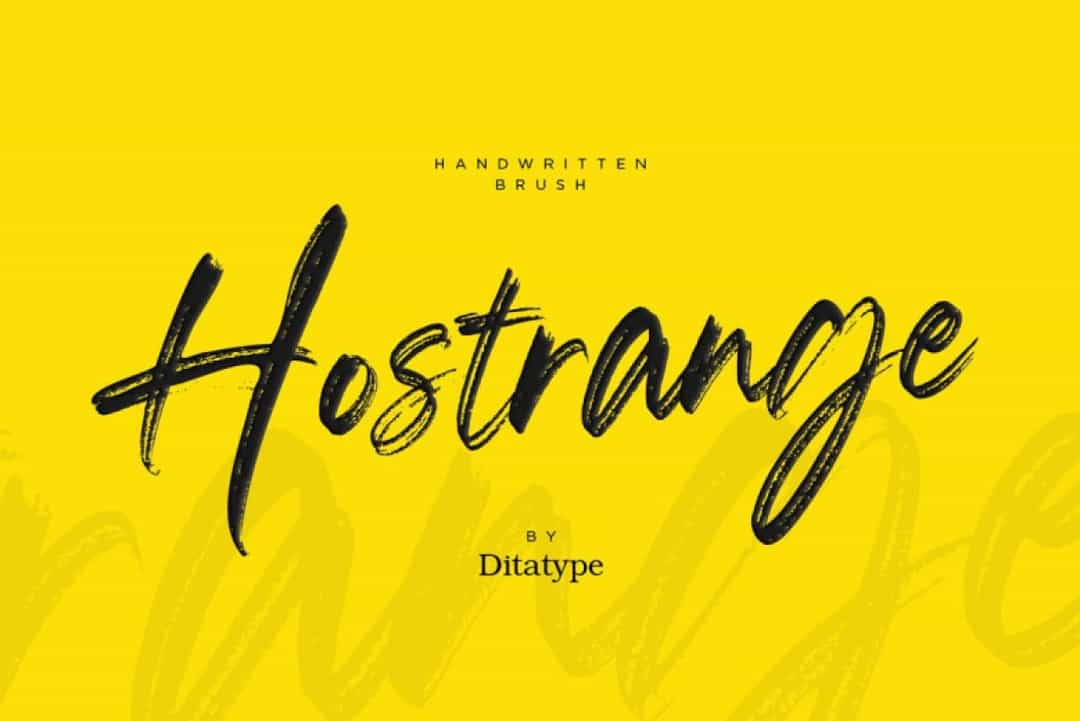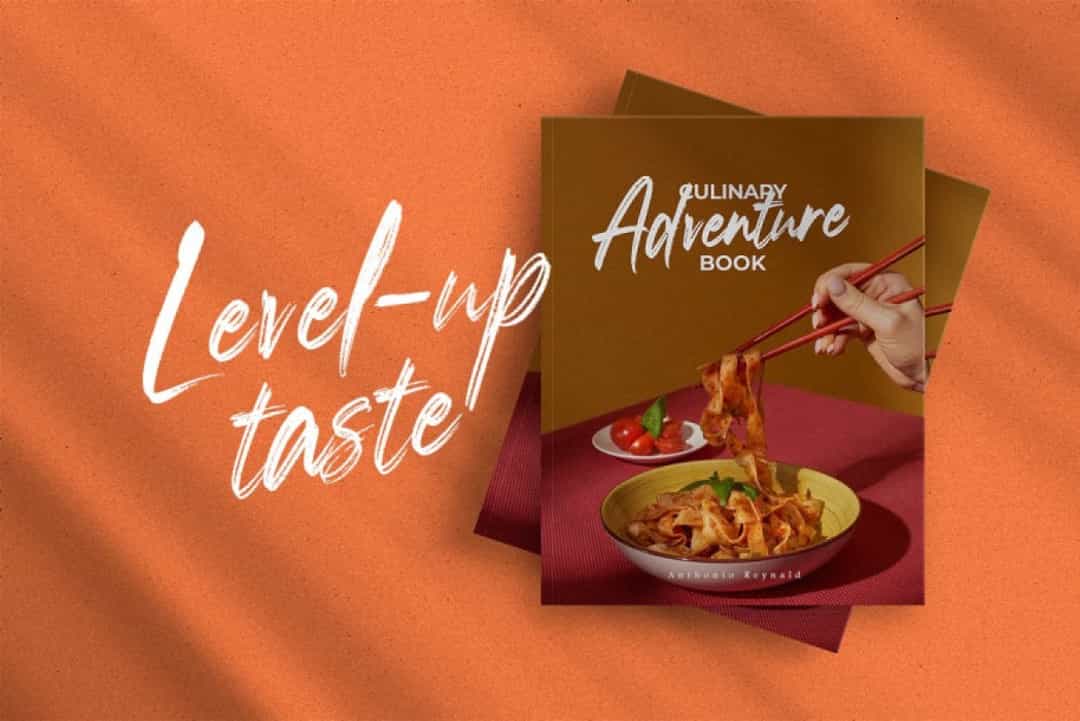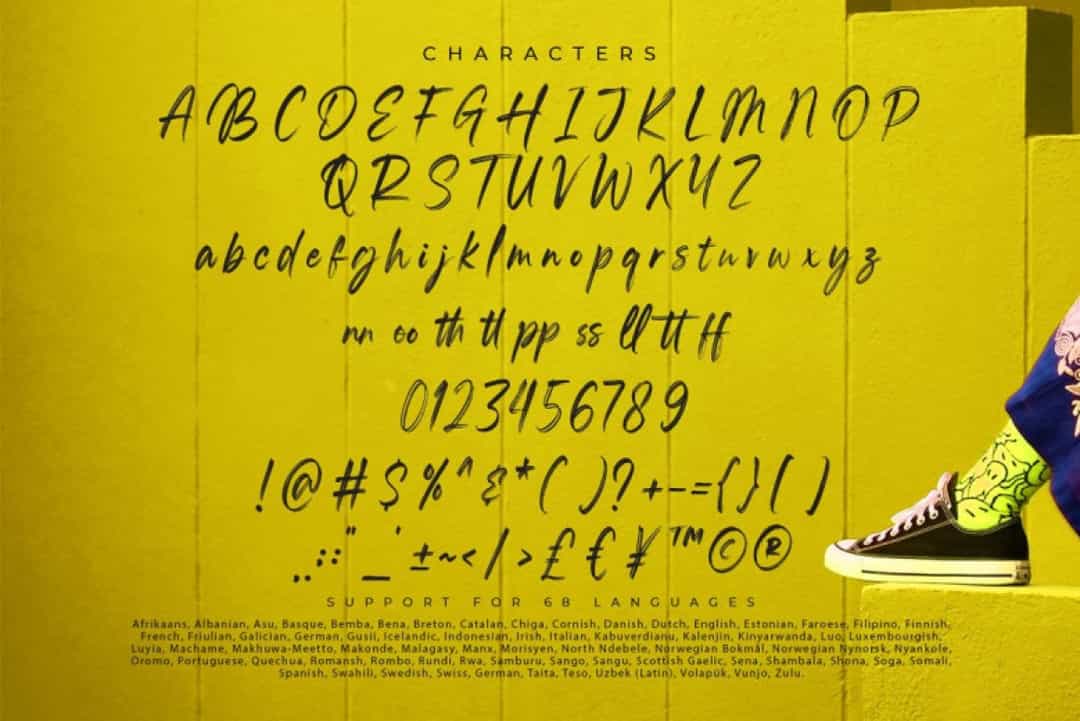
Hostrange is an elegant handwritten brush font that brings authenticity and character to any design project. Boasting its signature brush-style letters with various thicknesses of brush strokes, Hostrange captures the essence of handcrafted elegance while standing out through its dynamic brush stroke variations that vary between letters displaying different sizes of each letter.